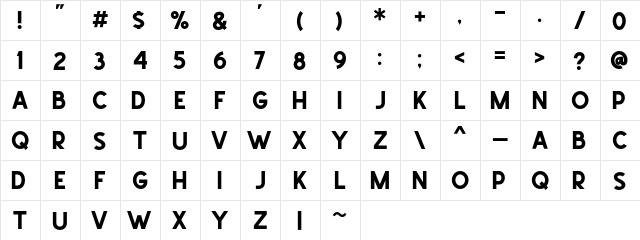
School Times Regular
Design Context for School Times Typeface
School Times is a composed and adaptable typeface that performs quietly and consistently across a wide range of design contexts.
Pro Tip: Pair School Times with a font of contrasting weight or personality to build a more expressive typographic hierarchy.